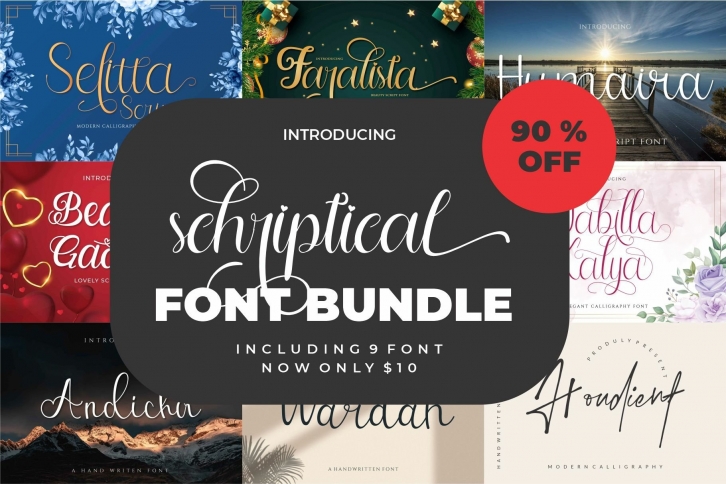
schriptical Bundle is a beautiful font that was designed by Alfinart. It's a great choice for designers and creatives who need such a font. It was released on January 7, 2022 and the file size is 11.90 MB. schriptical Bundle may give a more youthful, expressive and casual look to your project. It is a very beautiful, refined, elegant, and high-quality font.